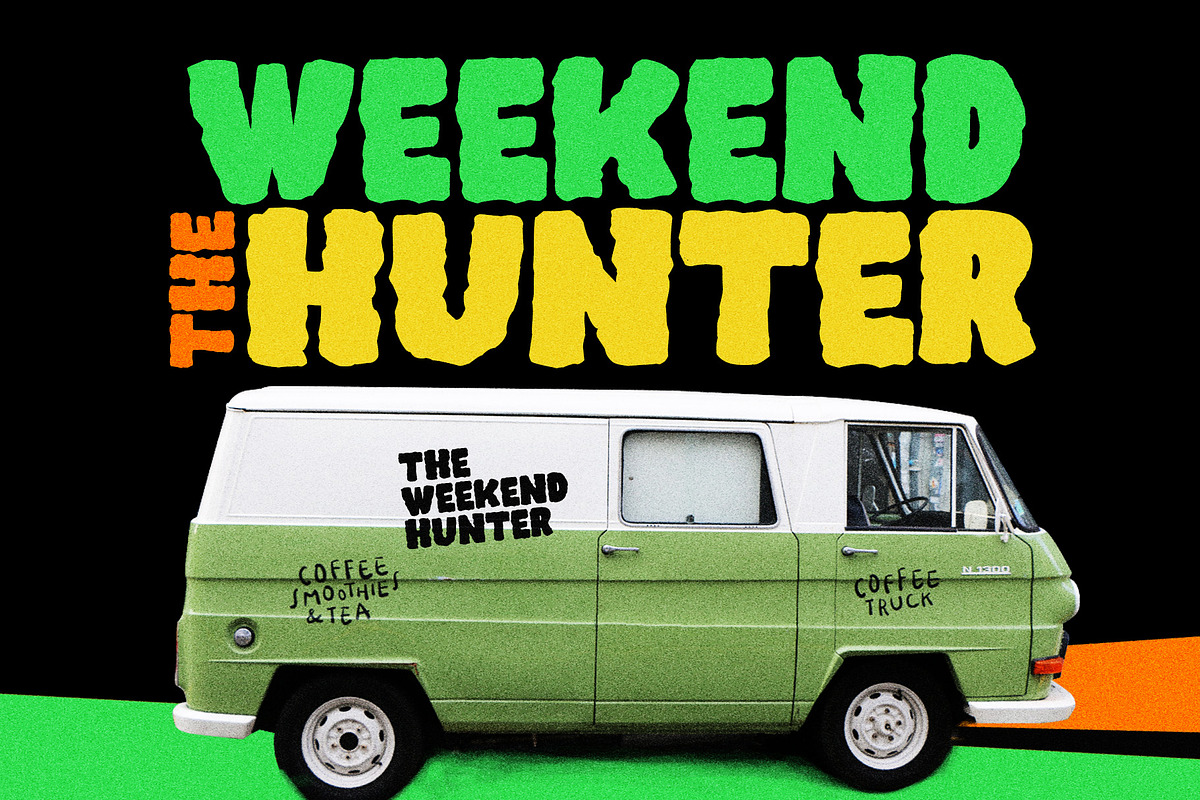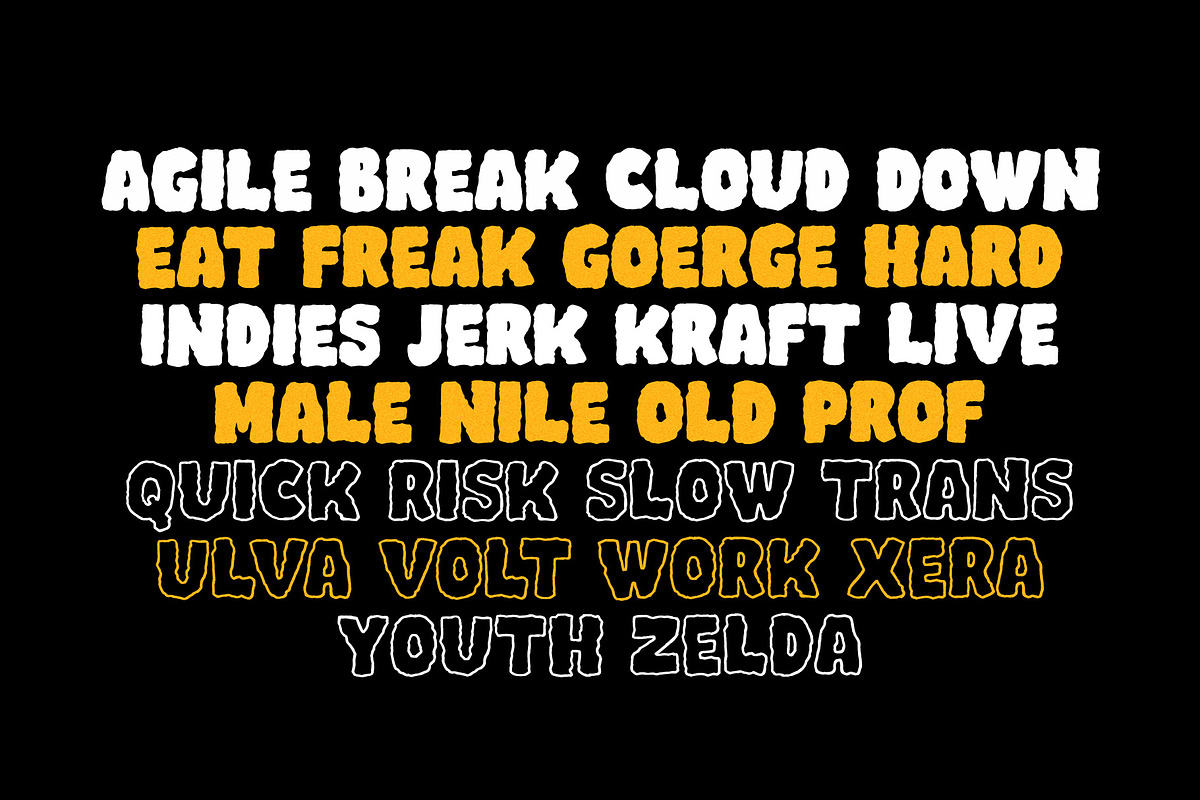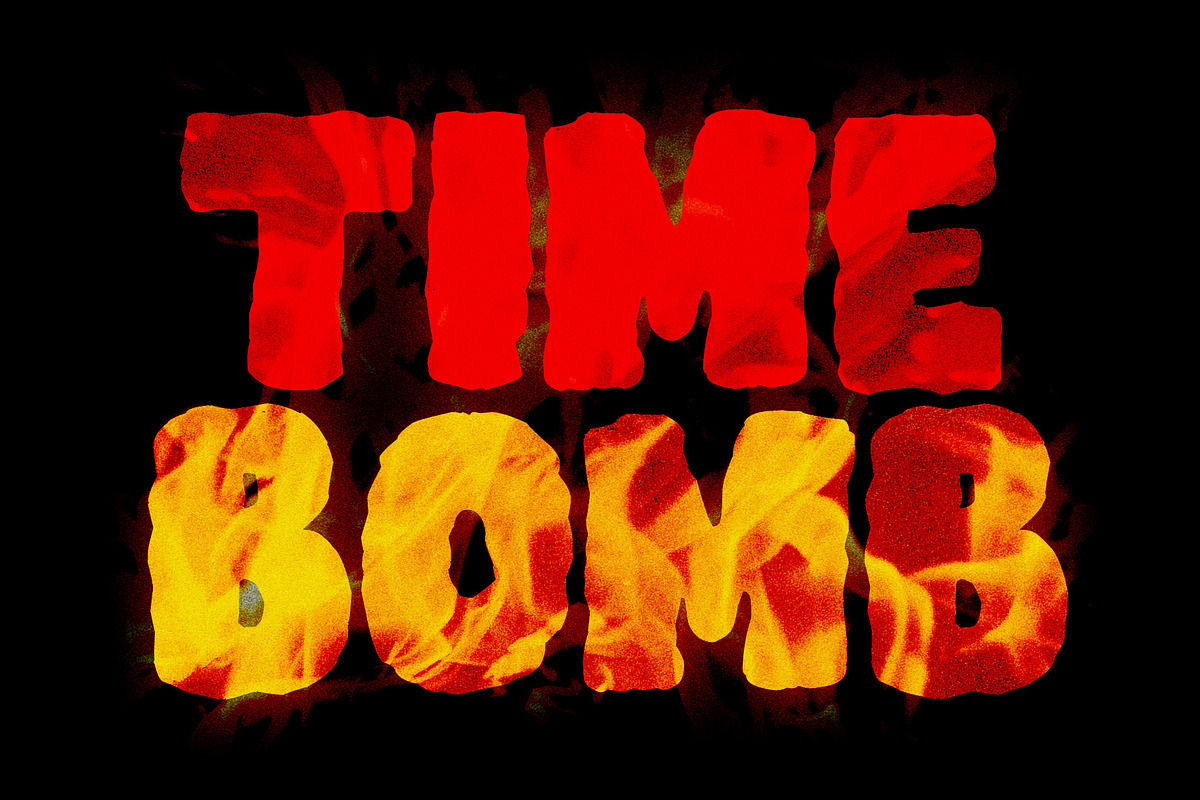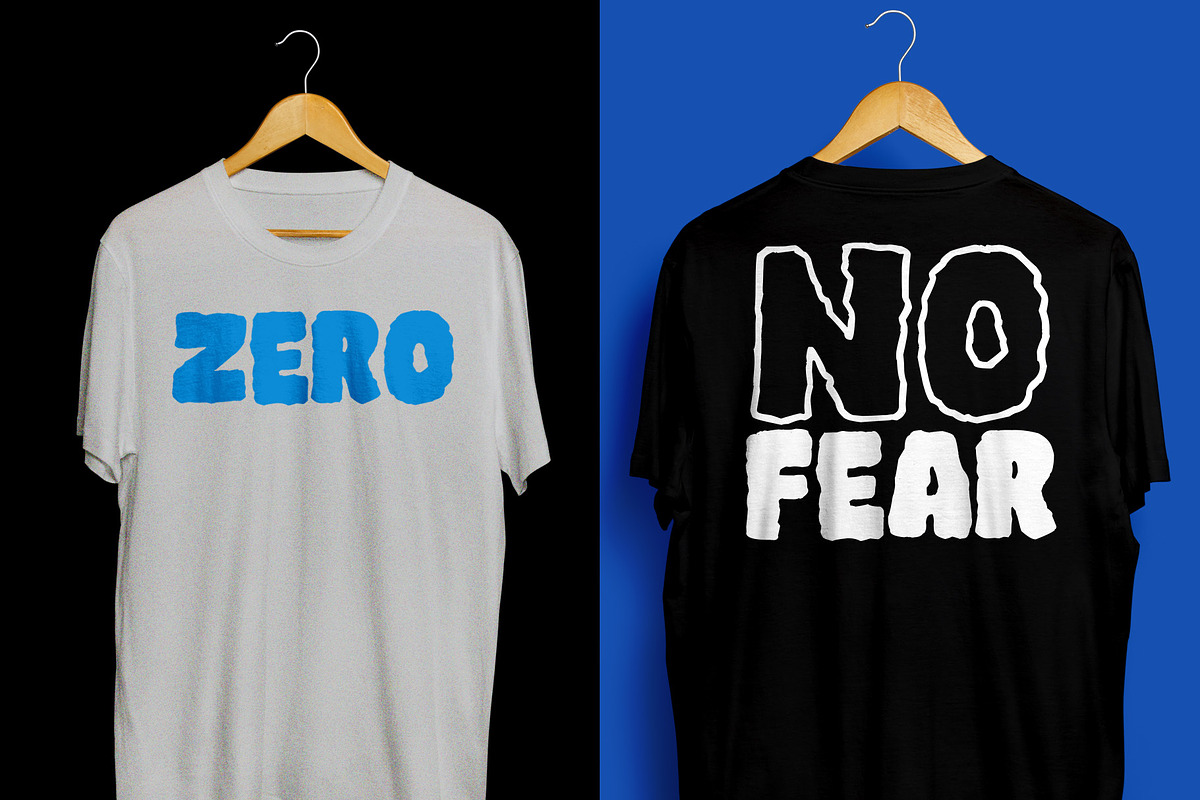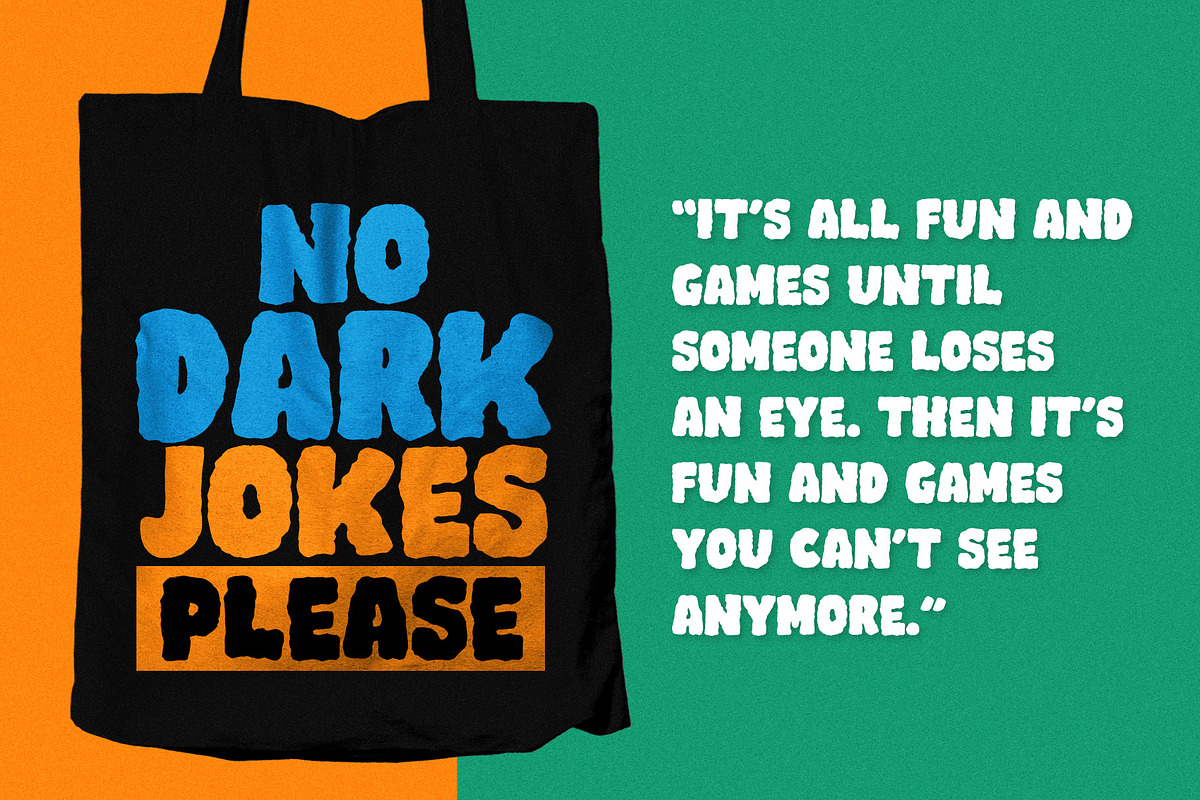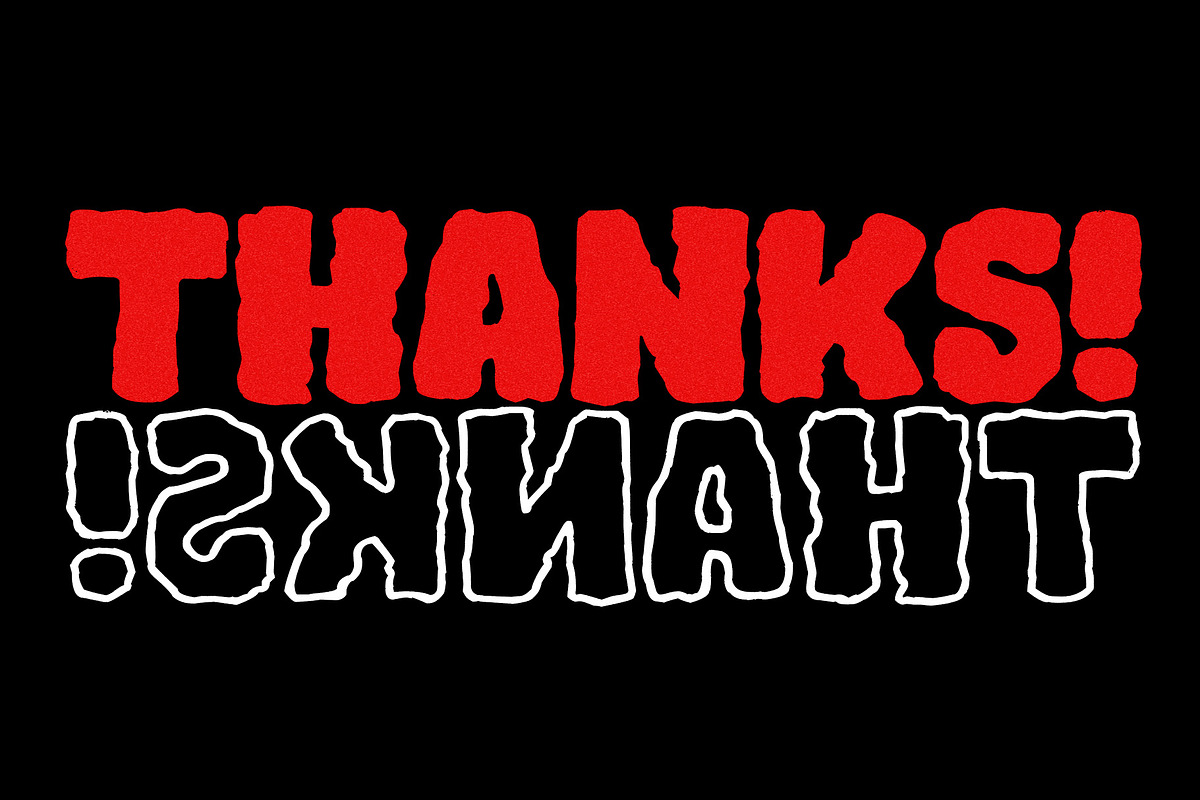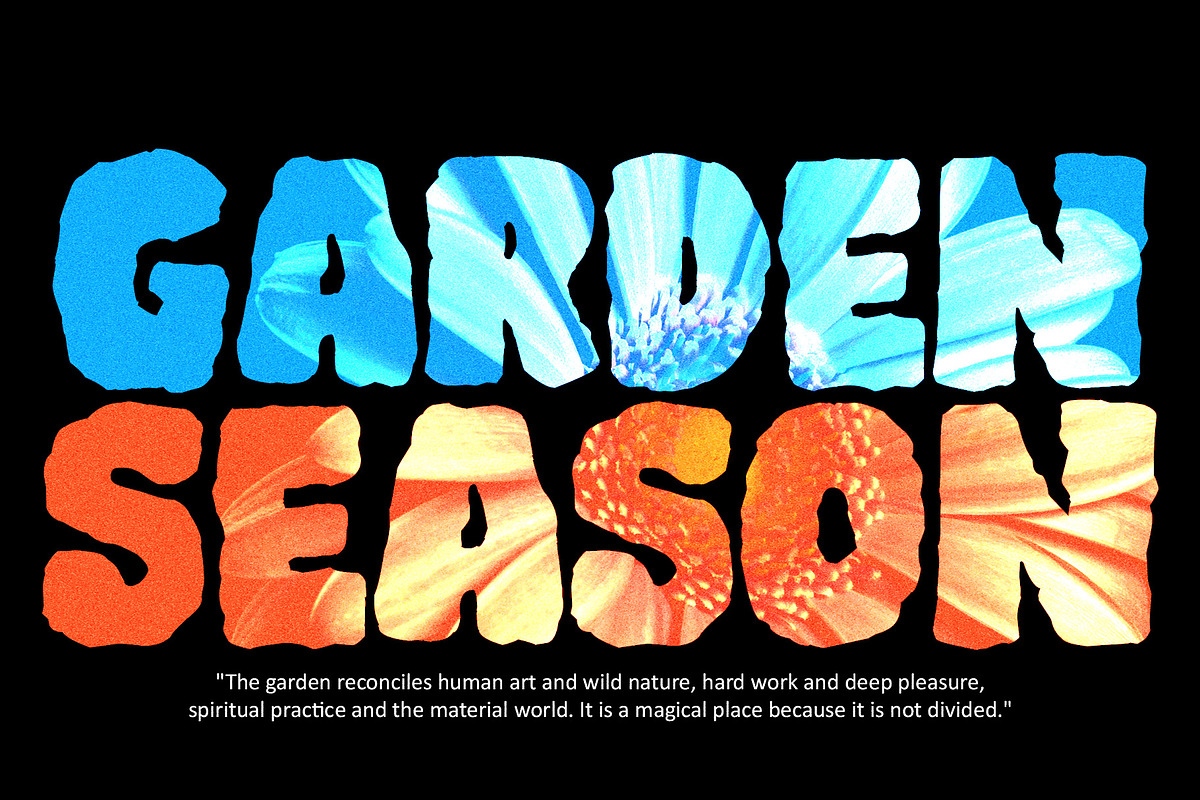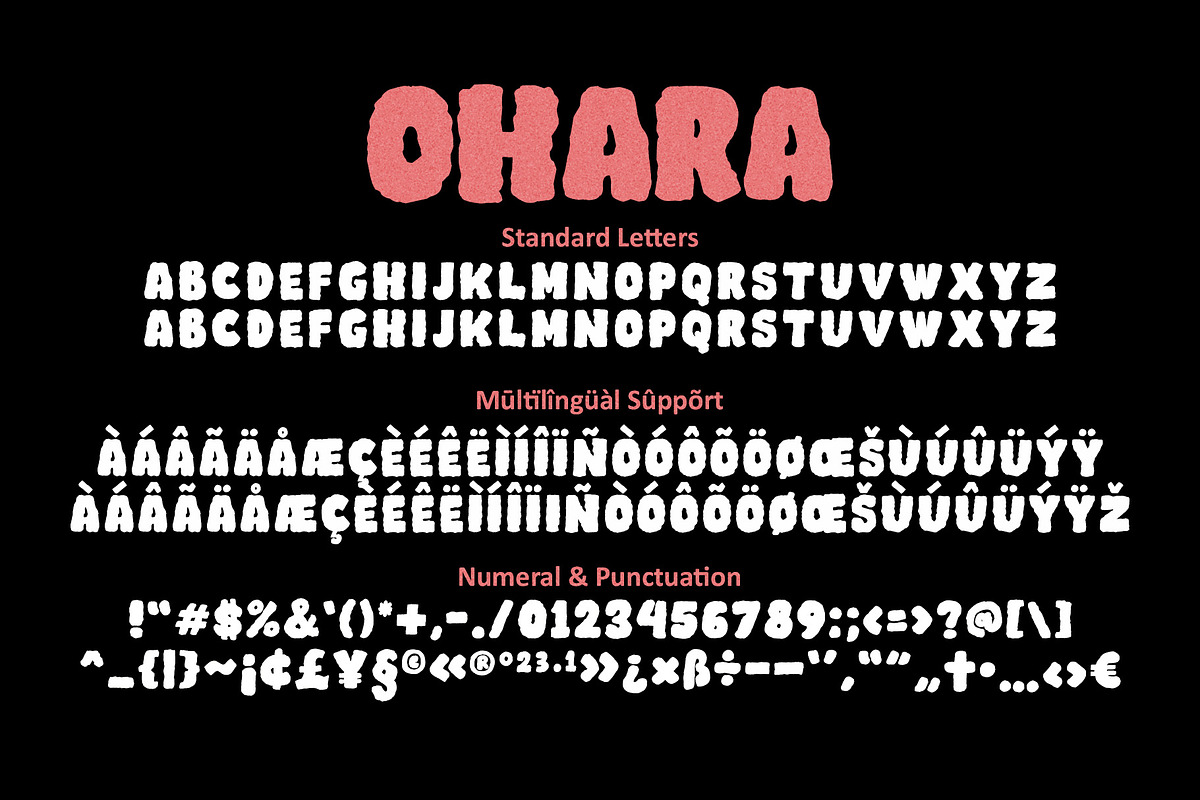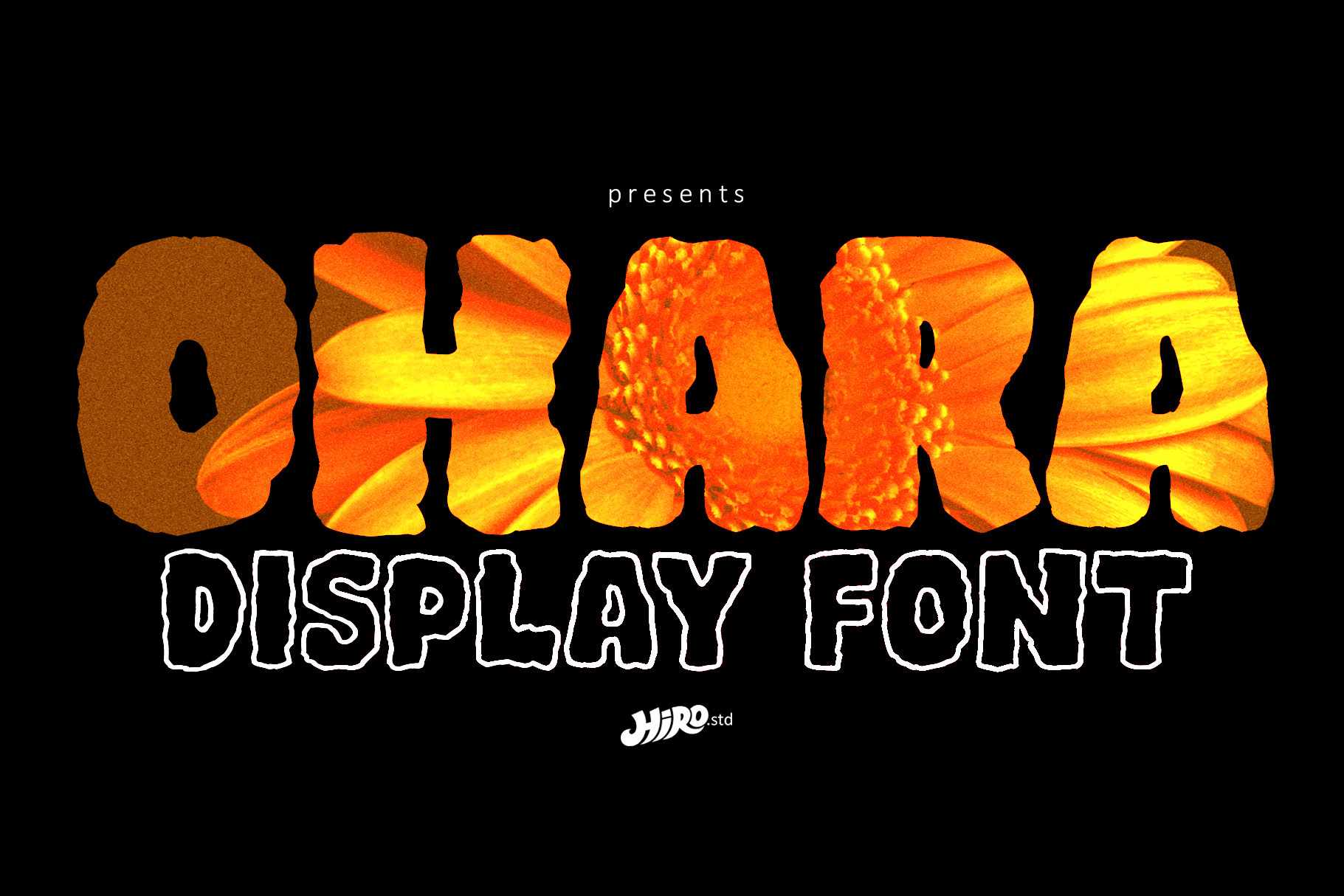
Ohara - Display Font
Ohara is Display Font
This font describes about about huge, bold, brush, handmade, movie.
- Uppercase letters
USE Ohara works great in any branding, logotype, magazines, poster, social media posts, clothing, advertisements, product packaging, product designs, label, company profile, quotes and any projects that need Huge and Bold taste.